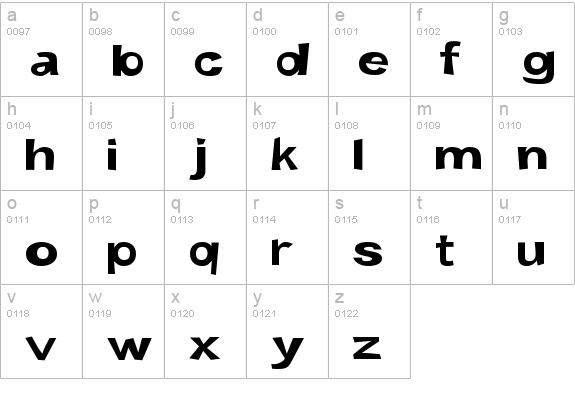
Snott 2000 Bold Font Details
Snott 2000 Bold is a strong, high-contrast variant in the Snott typeface family \xE2\x80\x94 well suited to headlines, attention-grabbing titles, and strong calls-to-action.
Introducing Snott 2000 Bold font, a versatile typeface that exudes boldness and confidence. With its strong and sturdy letterforms, Snott 2000 Bold is perfect for making a statement in your designs. This font is ideal for headlines, posters, branding, and any project that requires a touch of modernity and flair. And the best part? Snott 2000 Bold font is completely free to download at FontsMarket.com. Yes, you heard it right – you can enhance your design projects with this eye-catching font without spending a dime. Don't miss out on the opportunity to add Snott 2000 Bold to your font collection today!